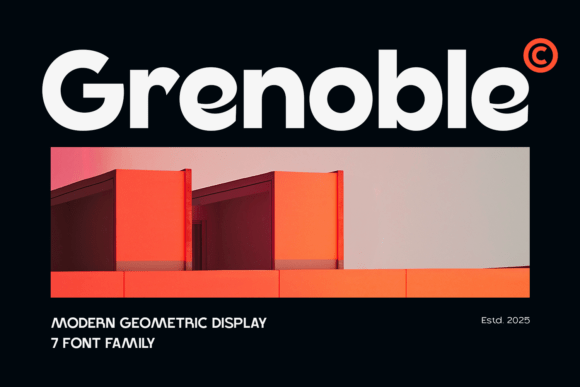
The Perfect Font for Modern Designers: Grenoble Font
Imagine you’re working on a design project, but you can’t seem to find the right font to convey your message. You want something that’s both modern and timeless, with a touch of sophistication. That’s where the Grenoble Font comes in – a sleek, geometric sans-serif font that combines the best of both worlds.
Designed to be highly legible and adaptable, the Grenoble Font is perfect for a wide range of design projects, from magazine layouts to digital interfaces. Its strong, structured shapes and large x-height make it stand out, while its minimal stroke contrast and geometric forms give it a contemporary feel. Whether you’re working on branding, posters, or packaging, the Grenoble Font adds a professional touch to your designs, giving your message a clear and distinctive voice.
Grenoble Font Key Features
- Font Family: Grenoble Font is a sans-serif typeface designed for readability and versatility.
- Unique Characteristics: Grenoble Font features a clean and modern design, with a focus on legibility and clarity, making it ideal for digital and print applications.
- Character Set: Supports a wide range of languages, including Latin, Cyrillic, and Greek scripts, making it a versatile font for global communication.
Grenoble Font Review
As a designer, I was excited to dive into the Grenoble Font and see what it had to offer. Overall, I’d say it’s a solid addition to any font library.
- The Grenoble Font is highly legible, making it perfect for body text and long blocks of content.
- The font’s clean design and minimal ornamentation make it easy to pair with other fonts and design elements.
- The font’s x-height is well-balanced, making it easy to read for users of all skill levels.
- The Grenoble Font lacks personality and flair, making it feel somewhat generic and unremarkable.
- The font’s sans-serif design can make it feel cold and uninviting in certain contexts.
- The font’s limited character set may make it difficult to use in certain languages or applications.
The Grenoble Font is a reliable, no-frills option that gets the job done. While it may not be the most exciting or unique font, it’s a solid choice for projects where legibility and simplicity are key.
Tips for Getting the Most Out of Grenoble Font
Here are some tips for getting the most out of Grenoble Font:
- Use it for titles and headings to add a touch of elegance.
- Pair it with other fonts to create a unique and interesting typography.
- Experiment with different font sizes and colors to find the perfect combination.
Grenoble Font is ideal for:
- Editorial and design projects that require a touch of sophistication.